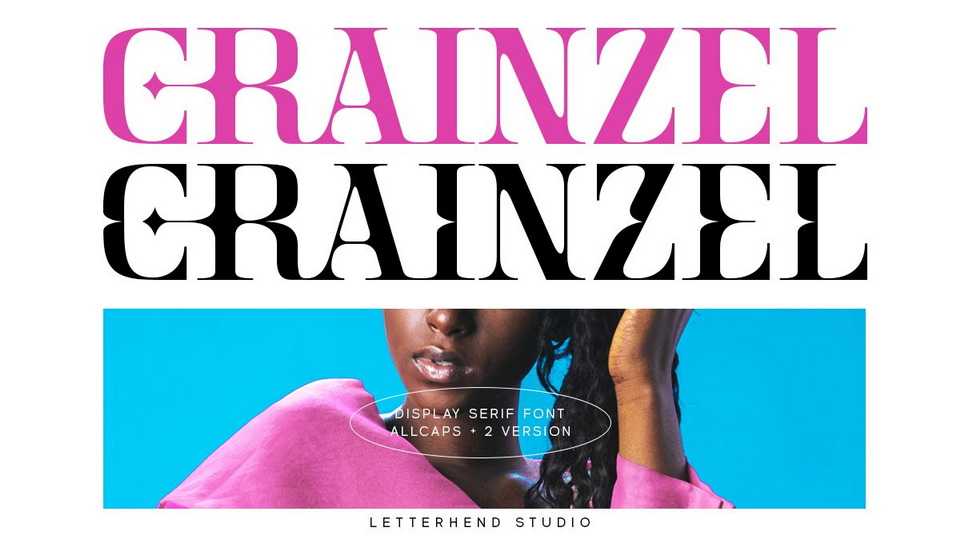
Download Crainzel font, a sophisticated serif typeface with unique characters and a lovely modern vibe. Crainzel is suitable for projects that need to stand out, such as logos, branding, marketing materials, social media posts, business cards, or more.